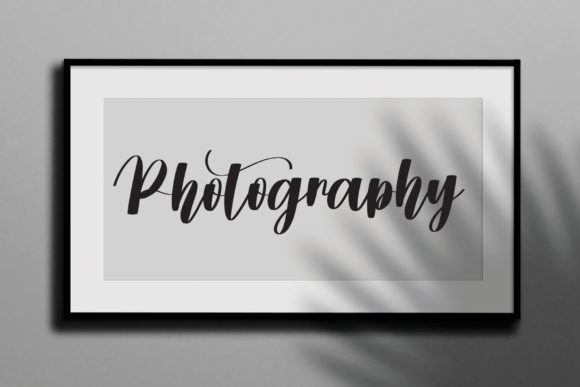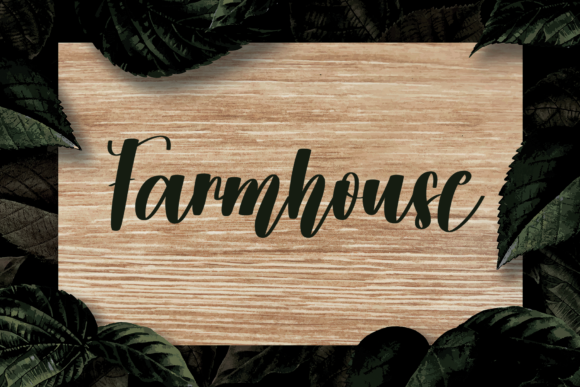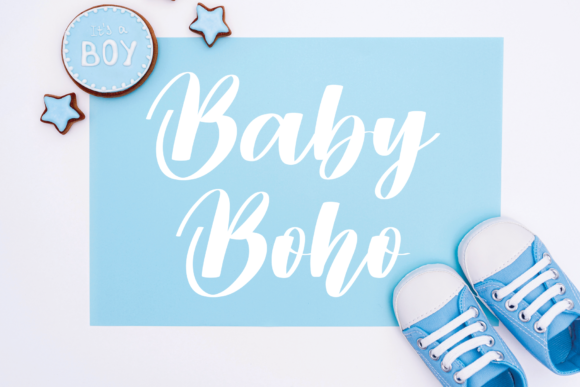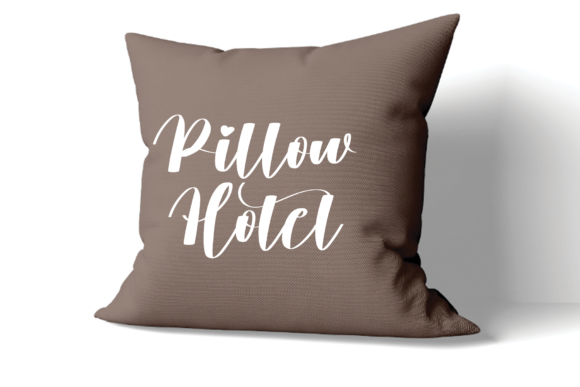
Introduction to Rachelle Romantic Font
Rachelle Romantic is a lovely and delicate script font that exudes elegance and class.
This font was particularly crafted for those who need a beautiful and refreshing look to their designs .
Key Features of Rachelle Romantic Font
Why Choose Rachelle Romantic Font?
Rachelle Romantic Font offers exceptional quality and versatility, making it a valuable addition to your design toolkit. Whether you’re creating for personal projects or commercial use, Rachelle Romantic Font delivers professional results.